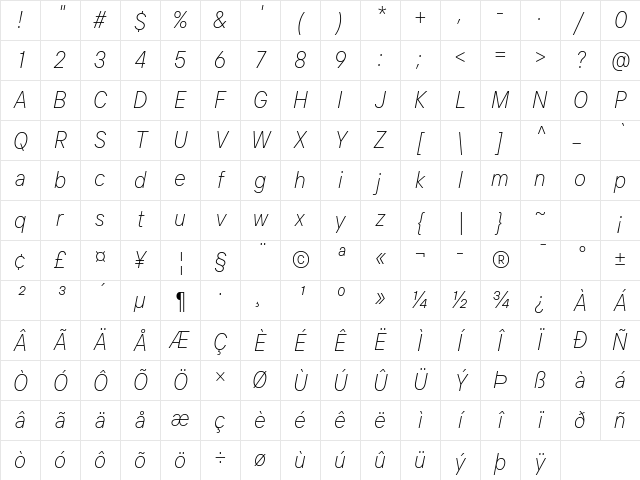
TT Intrphss Pr Trl Cnd XLt It
Style: XLt It
Designer: Designed by Antonina Zhulkova, Pavel Emelyanov, Marina Khodak, Kseniya Karataeva, Nadyr Rakhimov, Nadezhda Polomoshnova, Katya Kurtova, Tamara Streltsova, Radik Tukhvatullin, Yulia Gonina. Technical designers Ivan Gladkikh, Yuriy Nako, Tasya Petelina, Vic
Design Context for TT Intrphss Pr Trl Cnd
TT Intrphss Pr Trl Cnd is a composed and adaptable typeface that performs quietly and consistently across a wide range of design contexts. Its slender proportions lend an understated elegance to any composition.